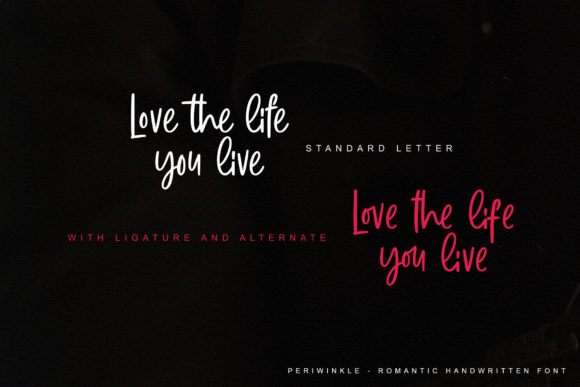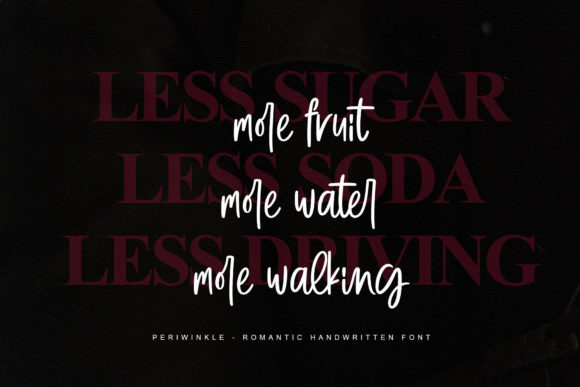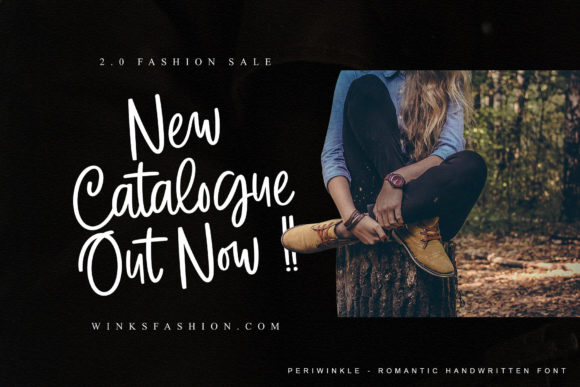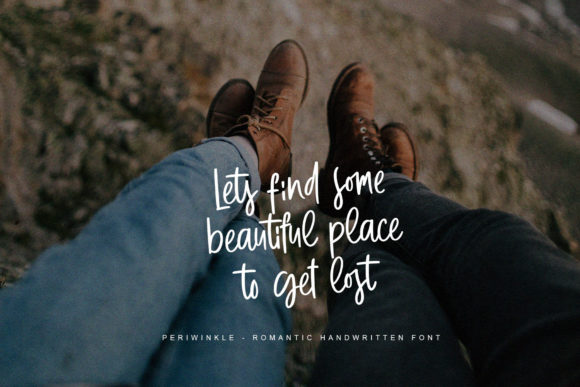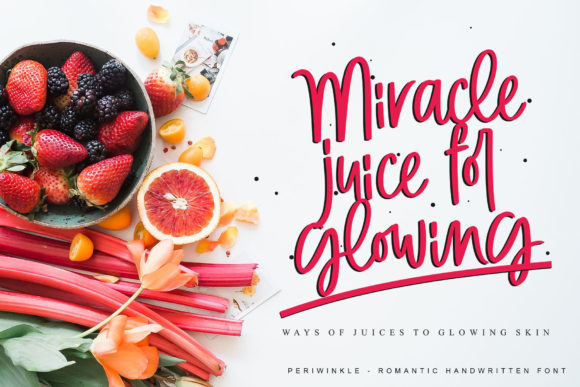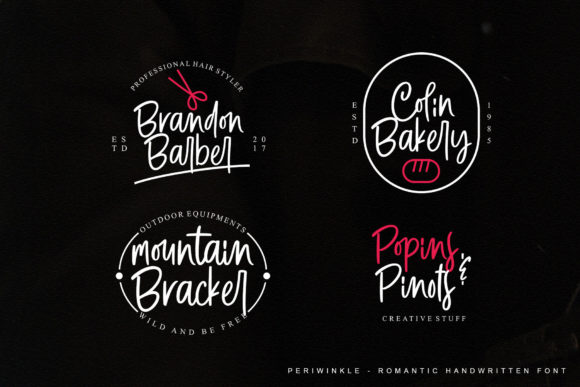
Periwinkle Font – Free Download
Introduction to Periwinkle Font
Periwinkle is a relaxed, fashionable and cursive script font.
Key Features of Periwinkle Font
Why Choose Periwinkle Font?
Periwinkle Font offers exceptional quality and versatility, making it a valuable addition to your design toolkit. Whether you’re creating for personal projects or commercial use, Periwinkle Font delivers professional results.